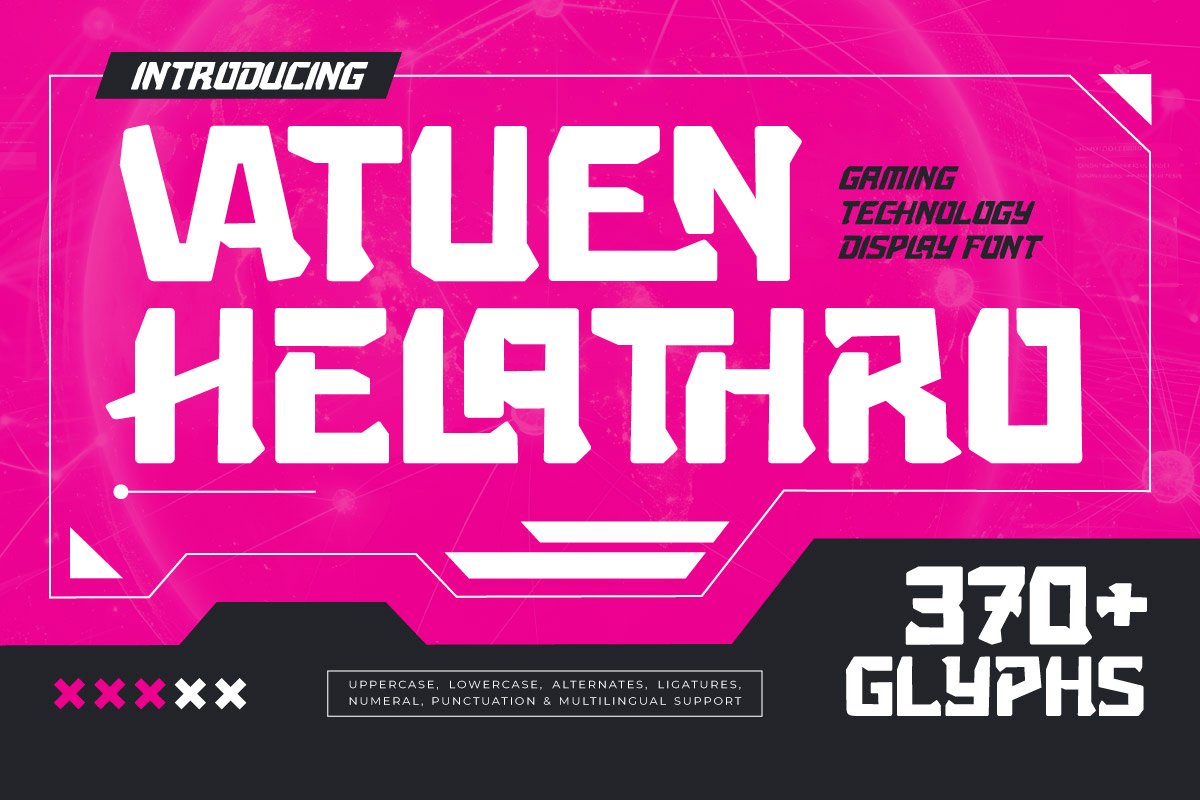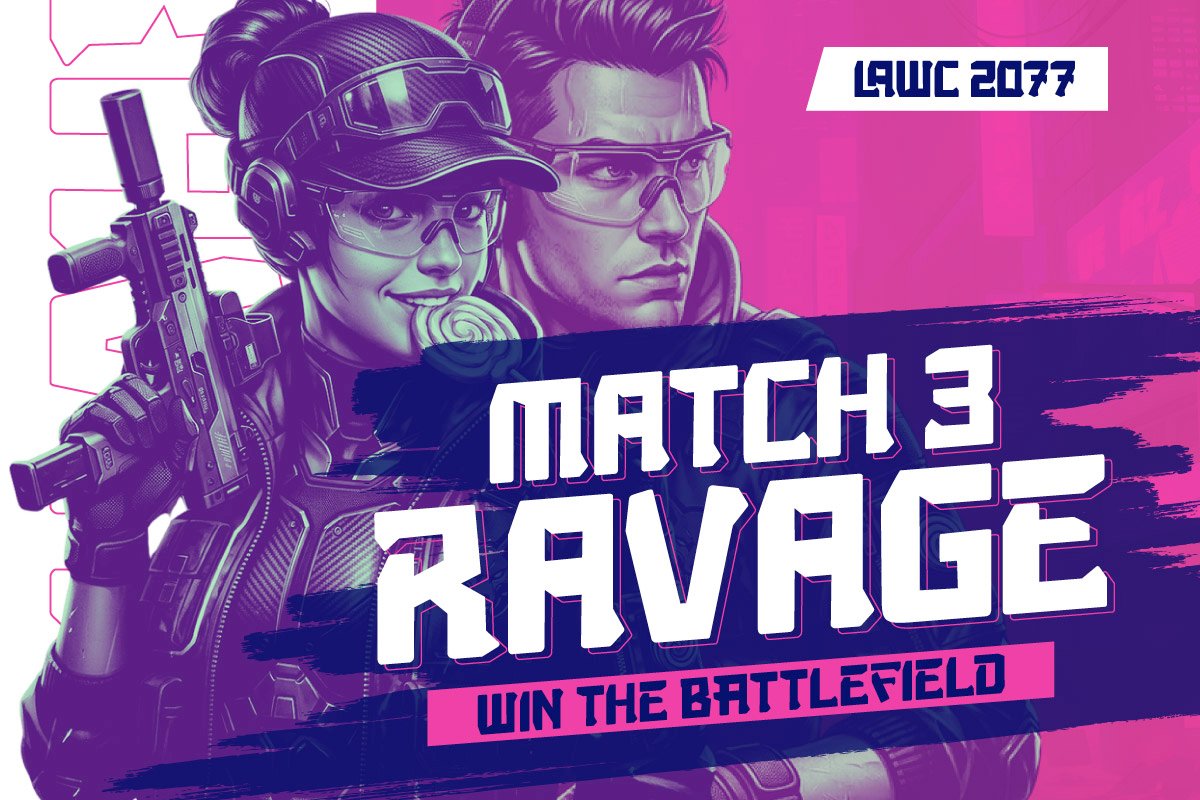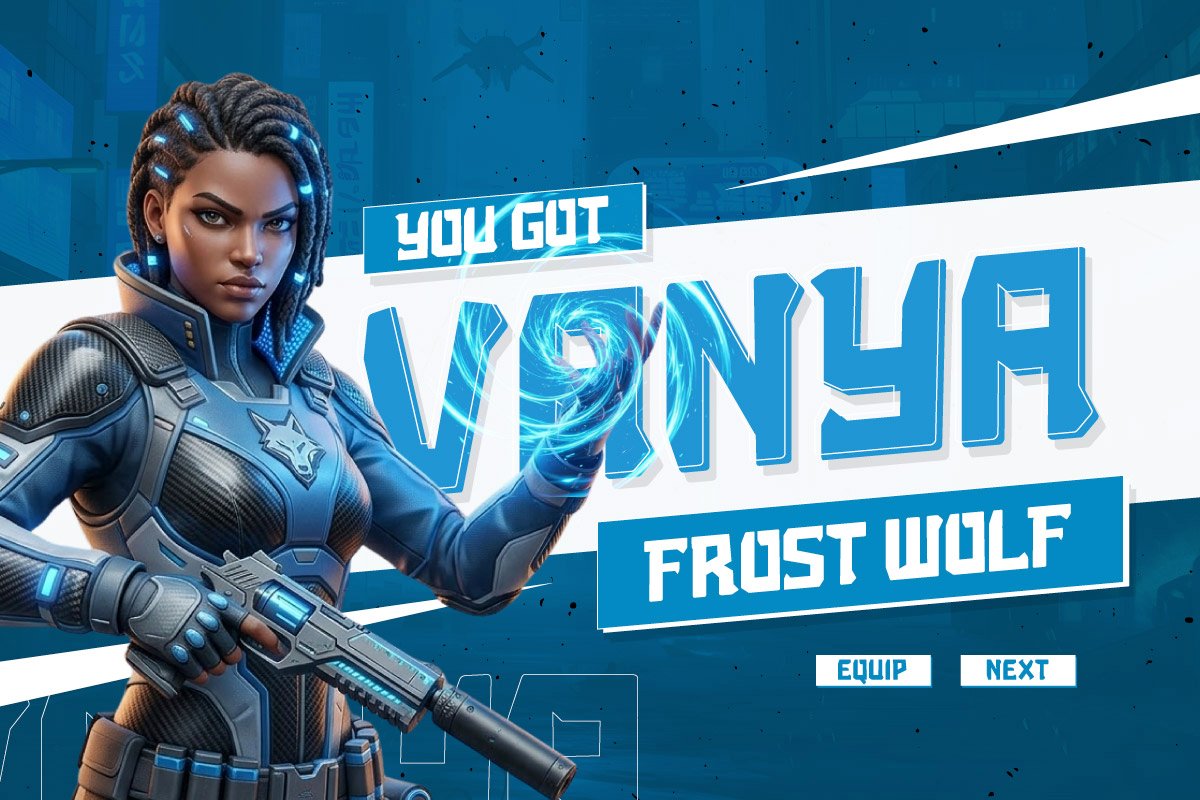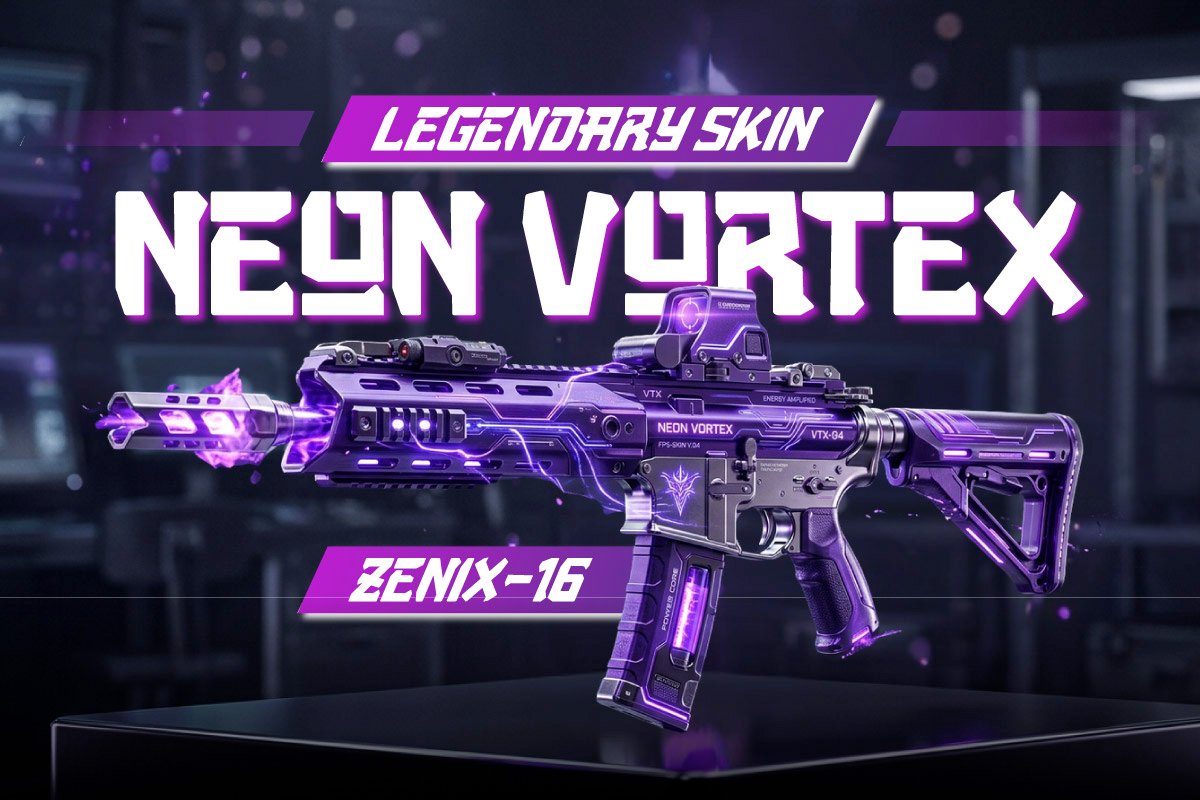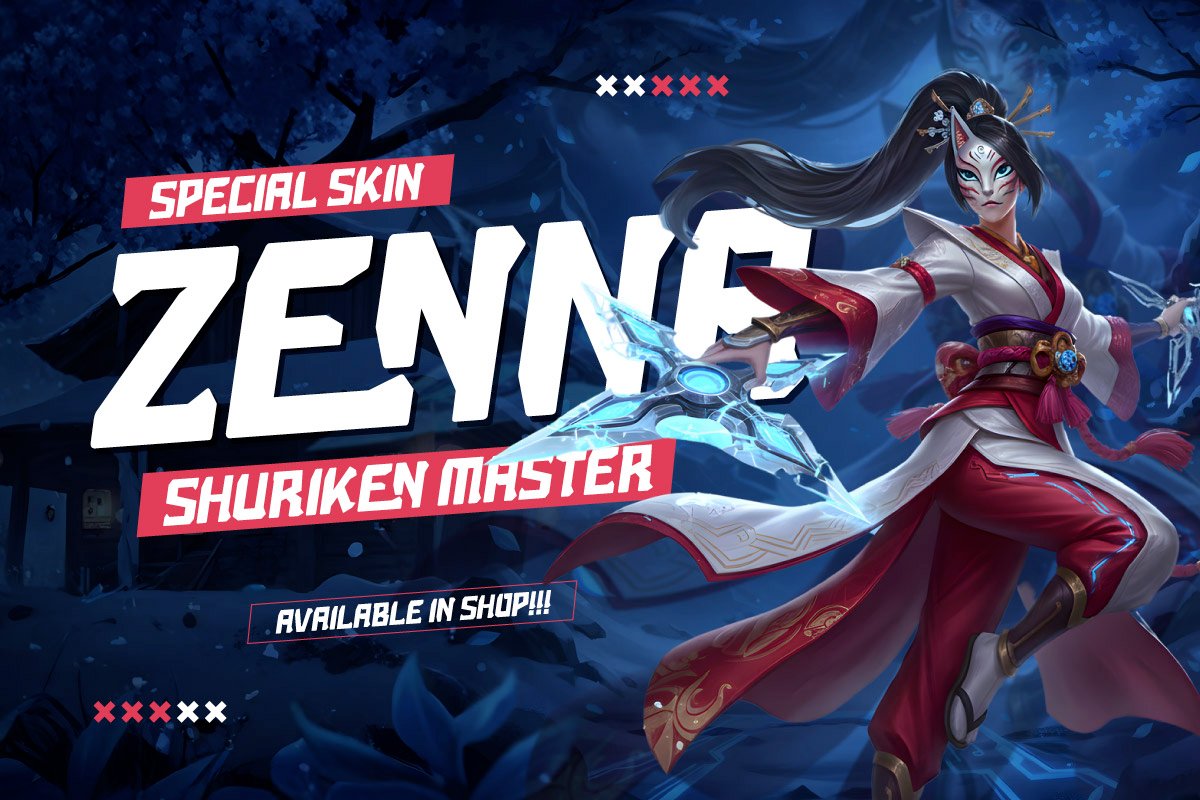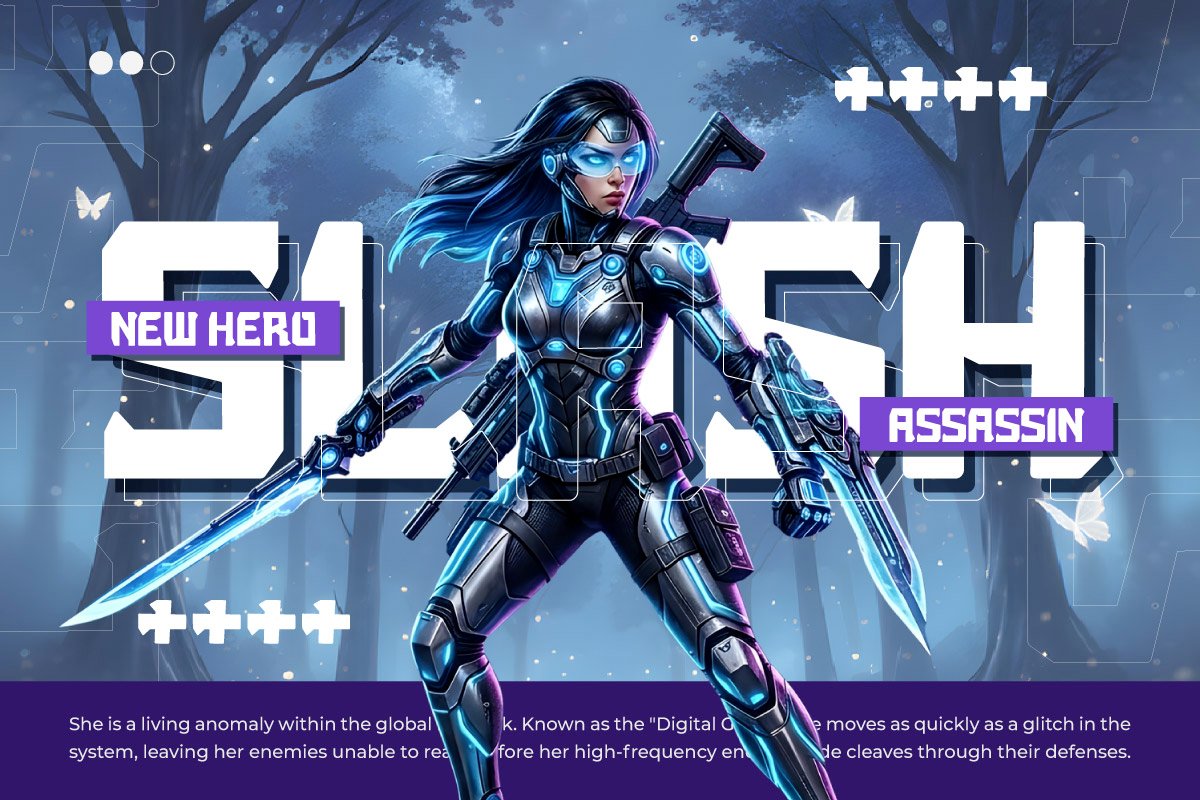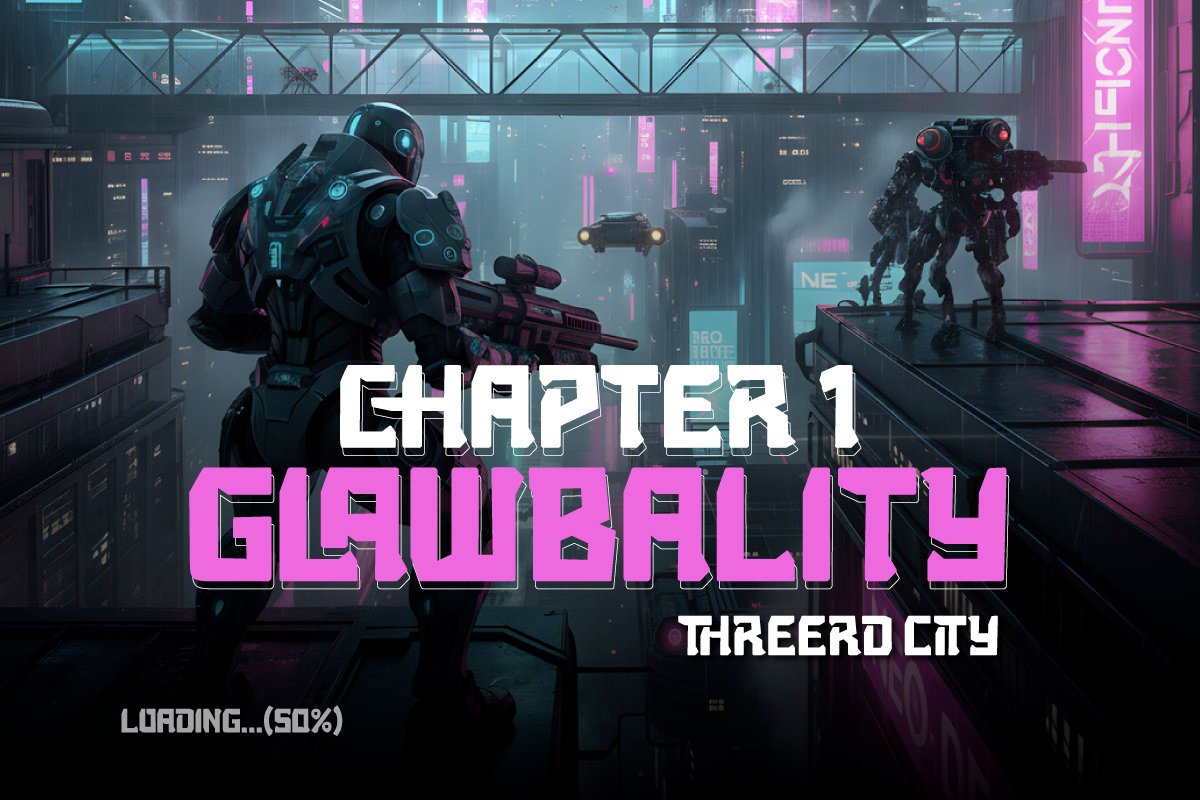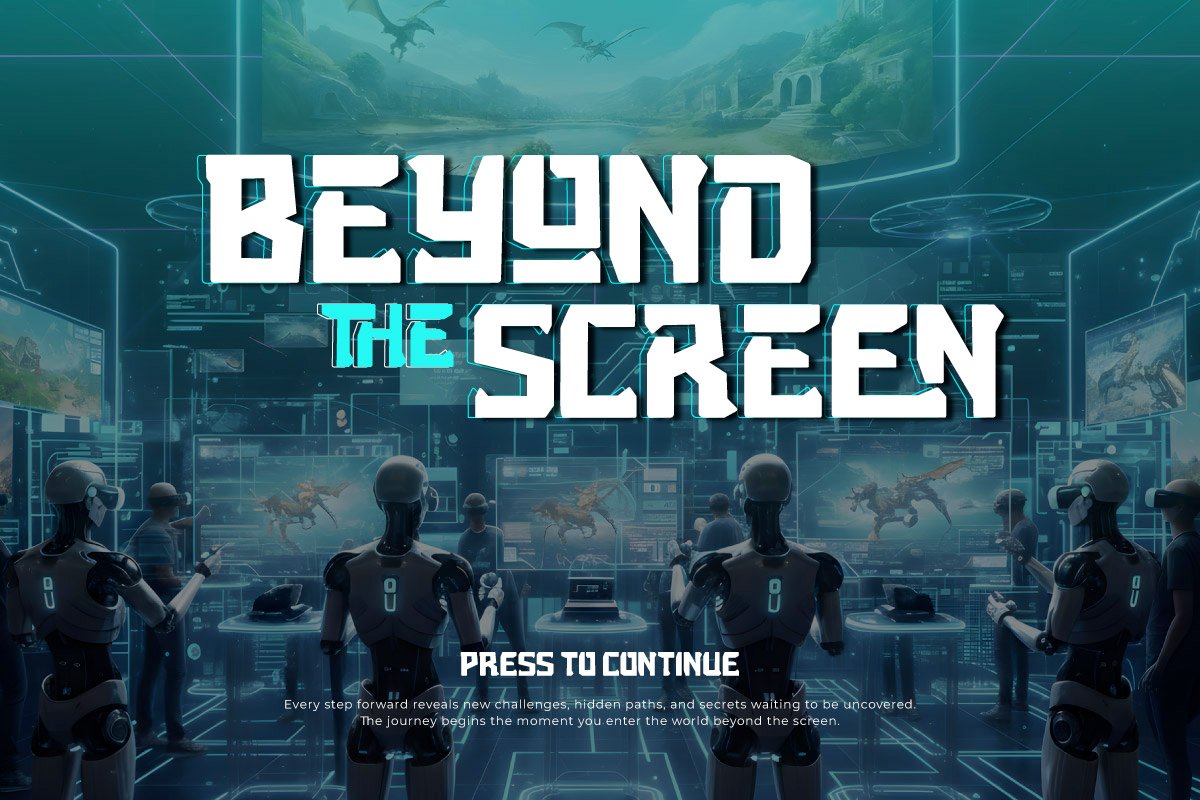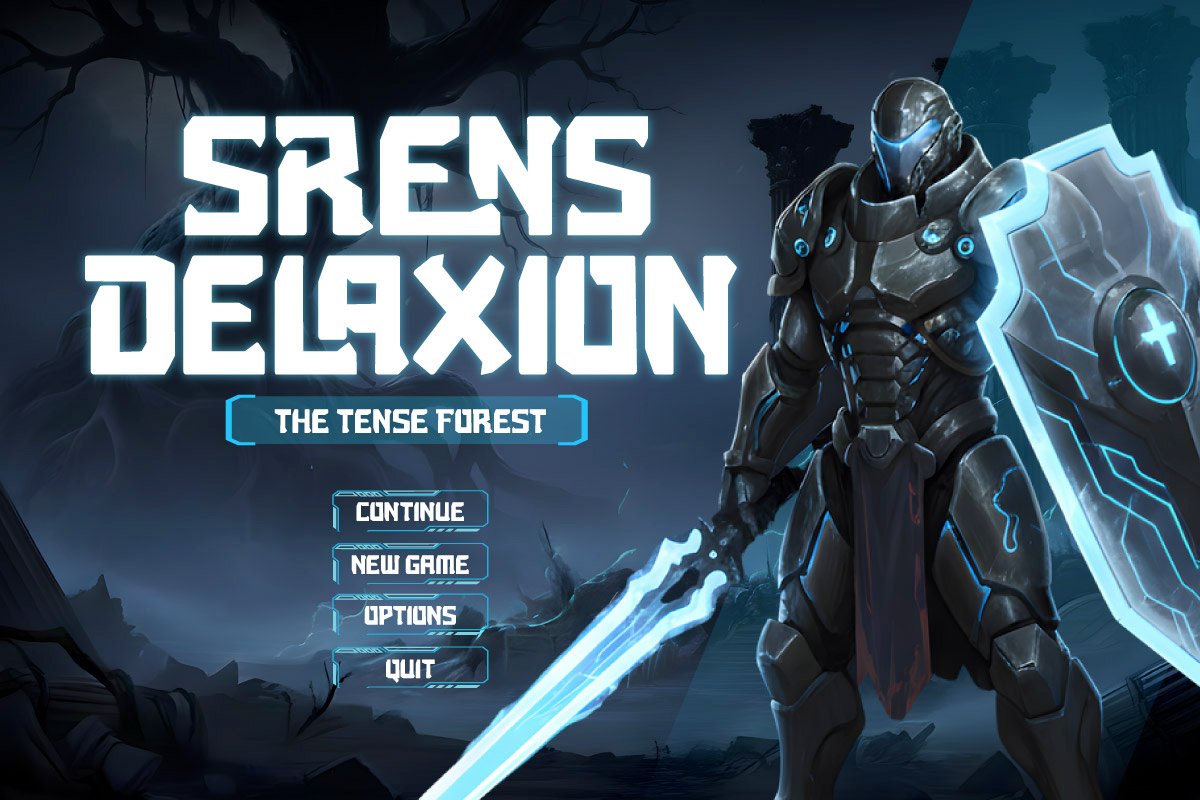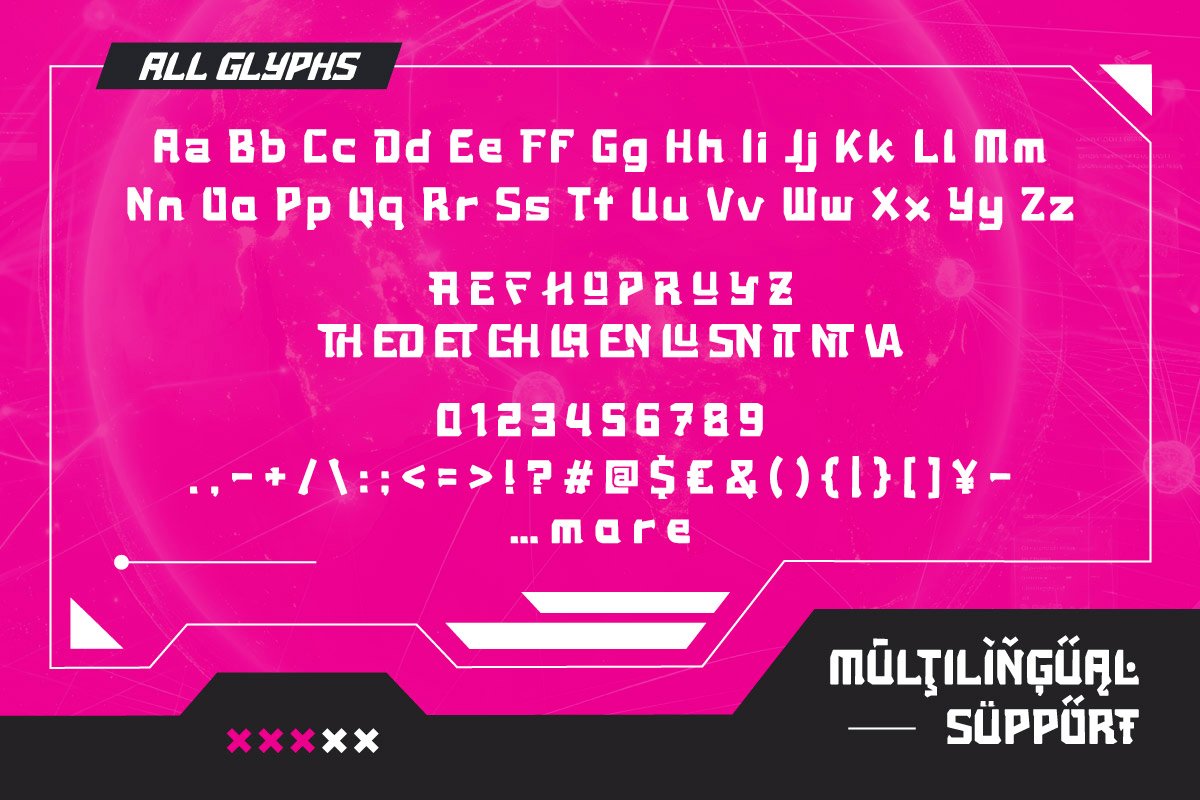
- Vatuen Helathro – Technology Gaming Font
Vatuen Helathro is a Modern Sans Serif typeface designed for the visual needs of the Fintech and digital banking industries. The font features clean geometric structures to provide a professional, stable, and trustworthy impression. Its visual characteristics are ideal for Modern Financial Ecosystems requiring a strong, technology-oriented identity.
As a digital typography solution, Vatuen Helathro supports a progressive and transparent corporate identity in the financial industry. Its flexibility makes this font the right choice for virtual card designs, digital financial reports, and other fintech promotional materials. Vatuen Helathro helps designers strengthen information hierarchy within a modern, secure, and innovative banking ecosystem.